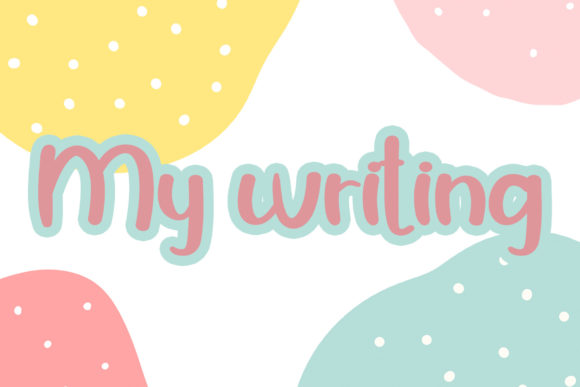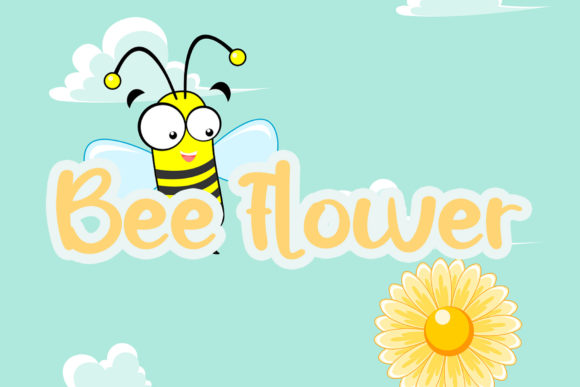
Boho Heart Font
db-ku.com - Script & Handwritten -- Boho Heart is a simple, quirky, and adaptable handwritten font. You can successfully add this elegant font on wedding invitations, business cards, greetings cards, social media posts, wall art, and more.